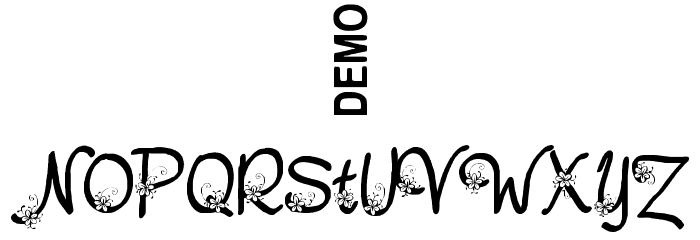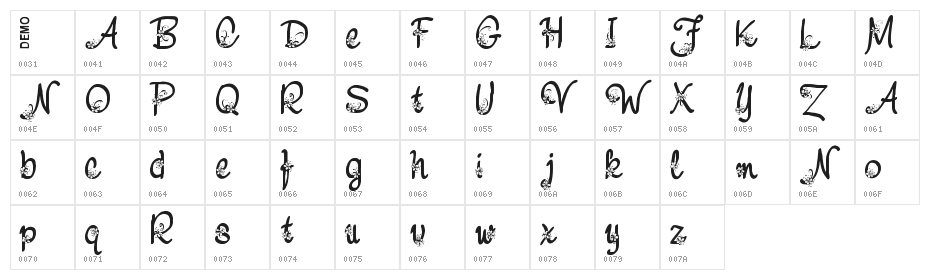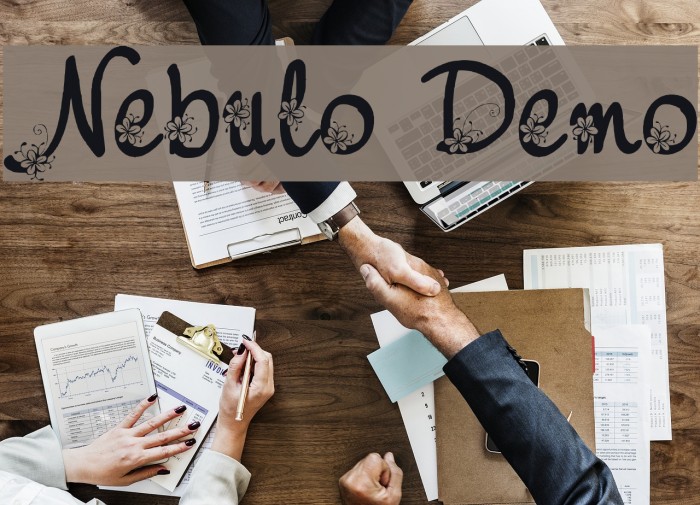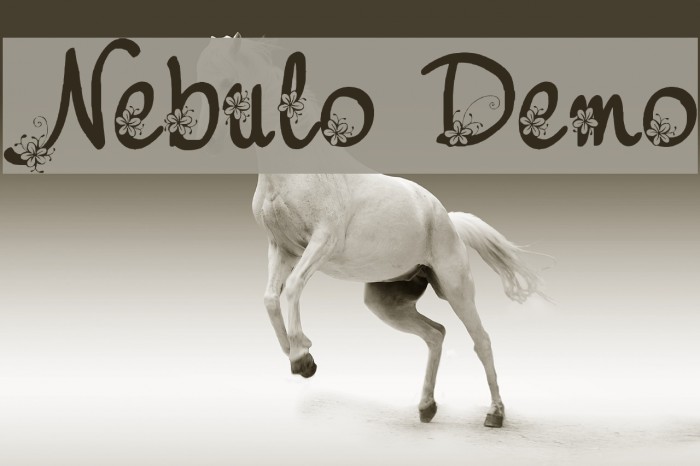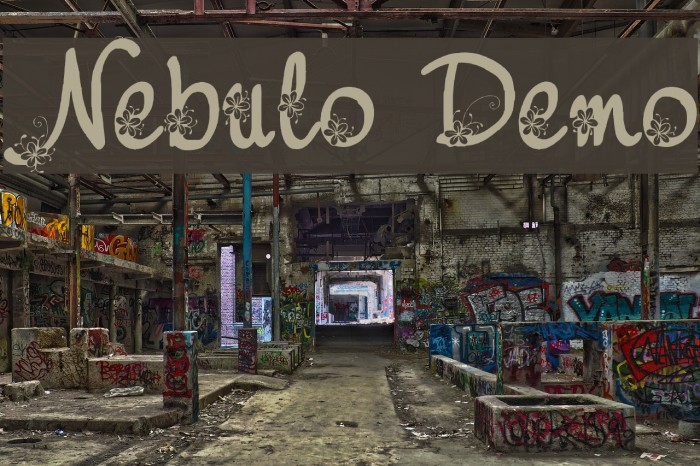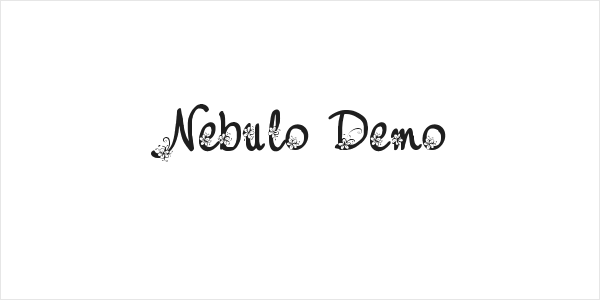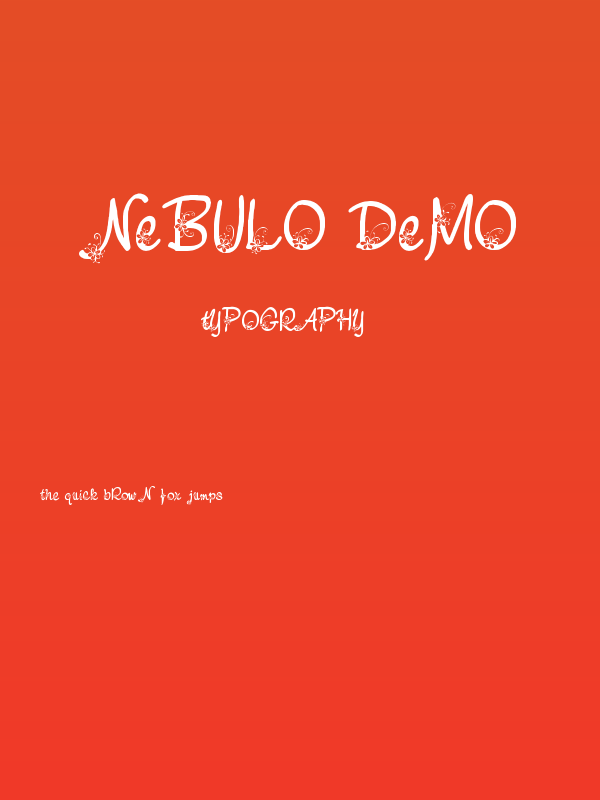
Nebulo Demo Font
Nebulo Demo Description
This decorative font features a whimsical and playful design, incorporating floral elements within each character. The letters have a hand-drawn quality, with varying stroke thickness that adds to its charm. The uppercase and lowercase letters are adorned with intricate flower patterns, making it ideal for creative and artistic projects. The font maintains a consistent style throughout, with a slightly condensed width and medium contrast in stroke thickness. Its unique and artistic flair makes it stand out, perfect for projects that require a touch of creativity and elegance.
| Proposed Projects | Ideal for wedding invitations, greeting cards, artistic posters, and branding materials that require a creative touch. |